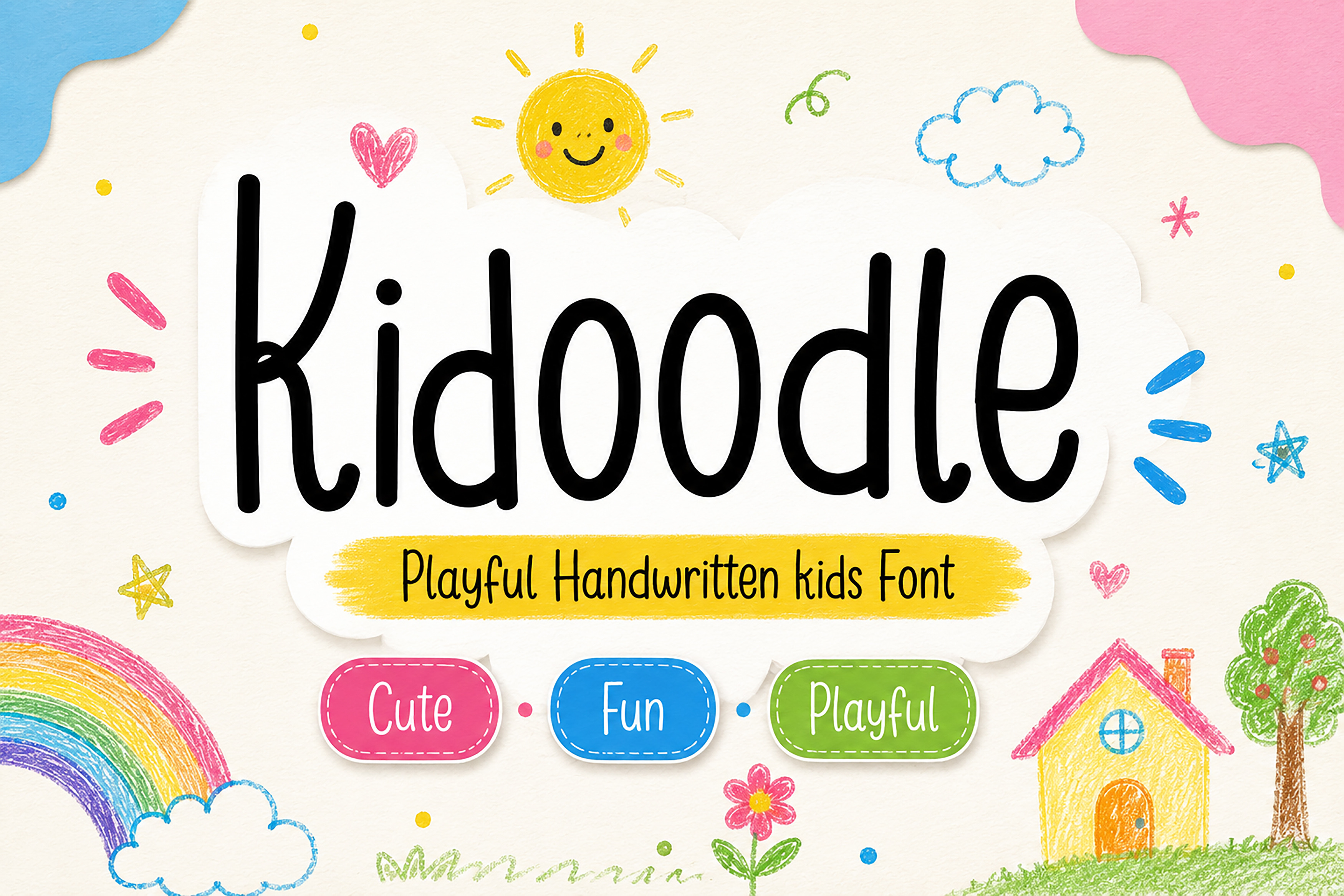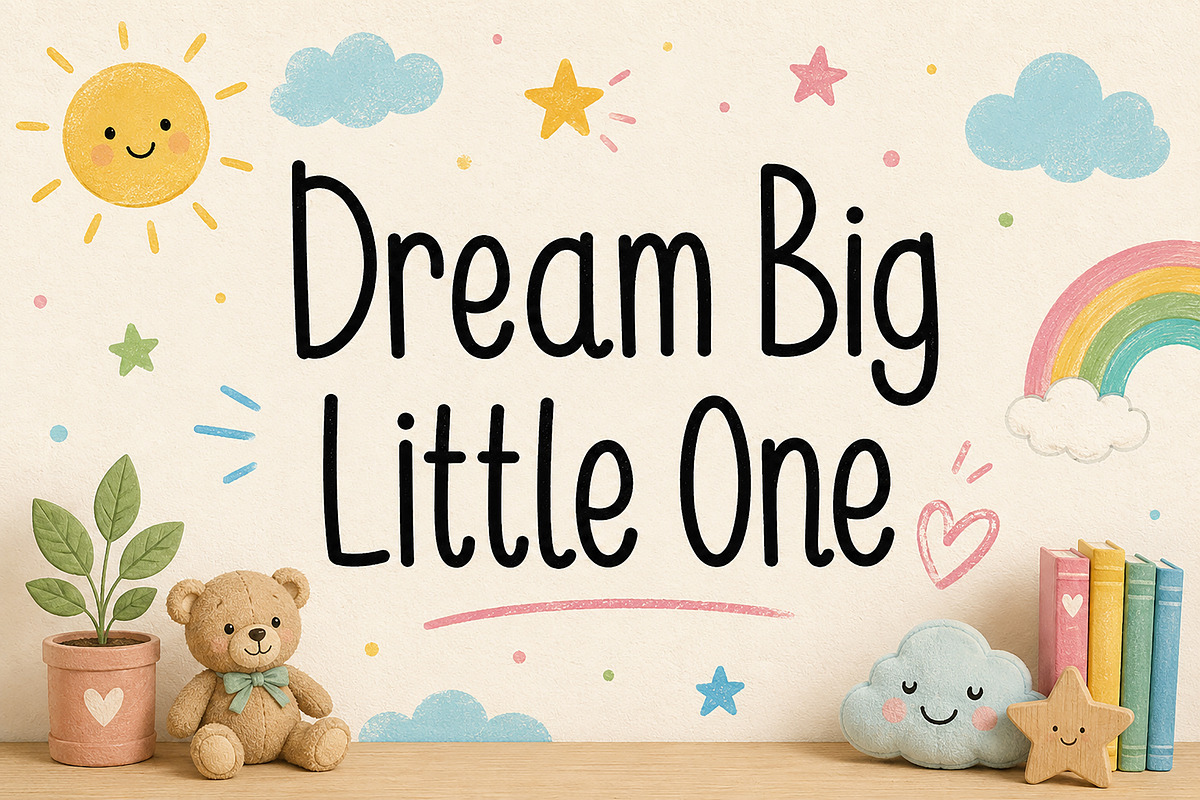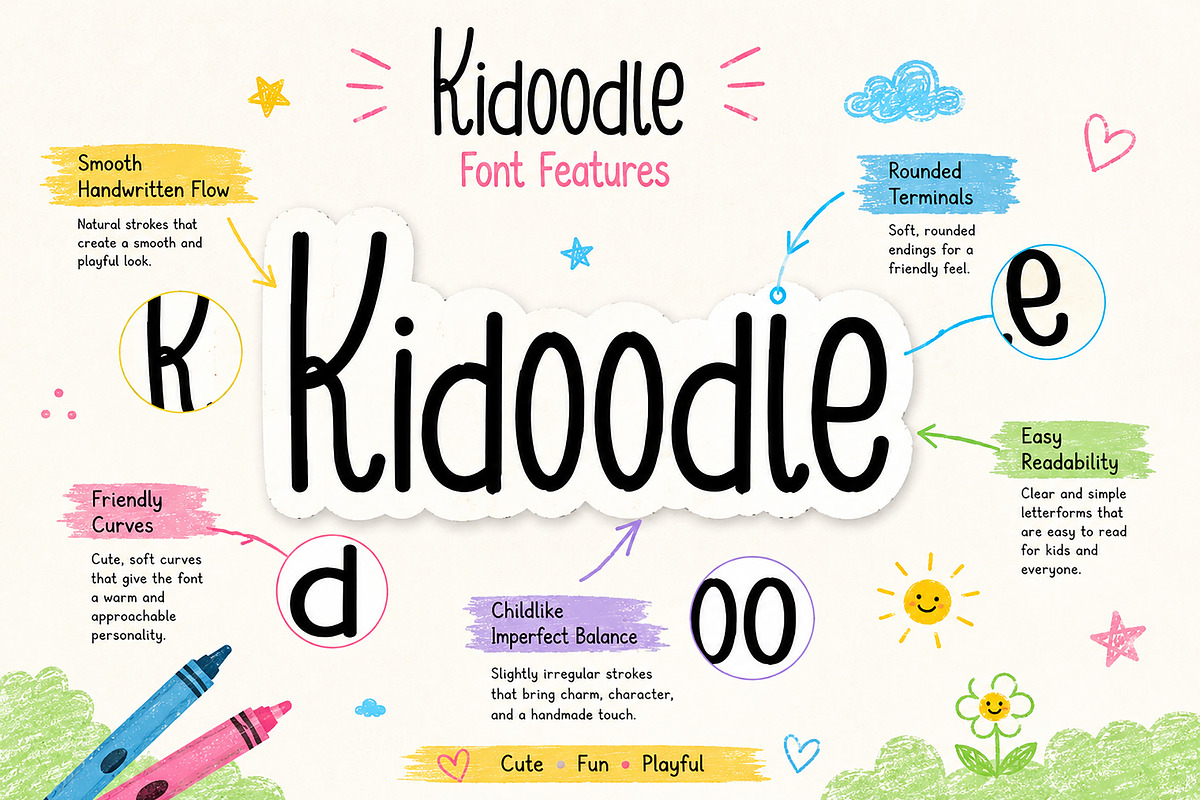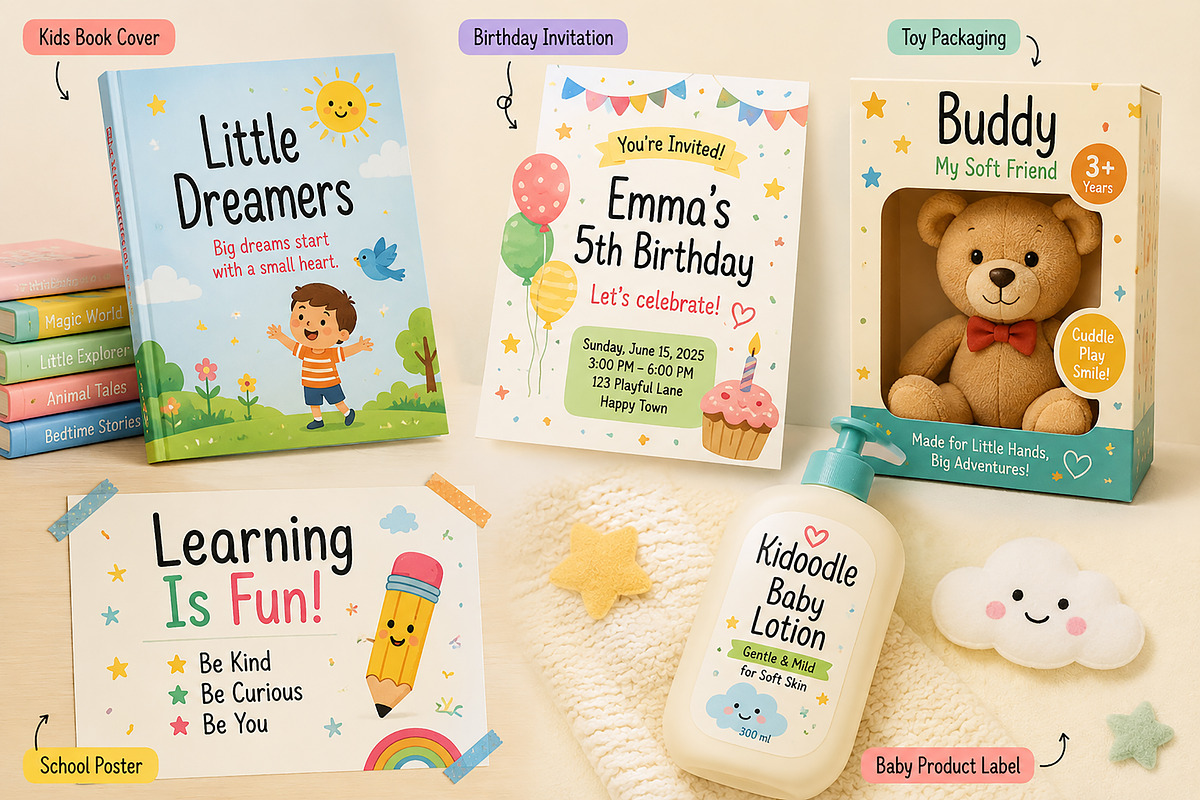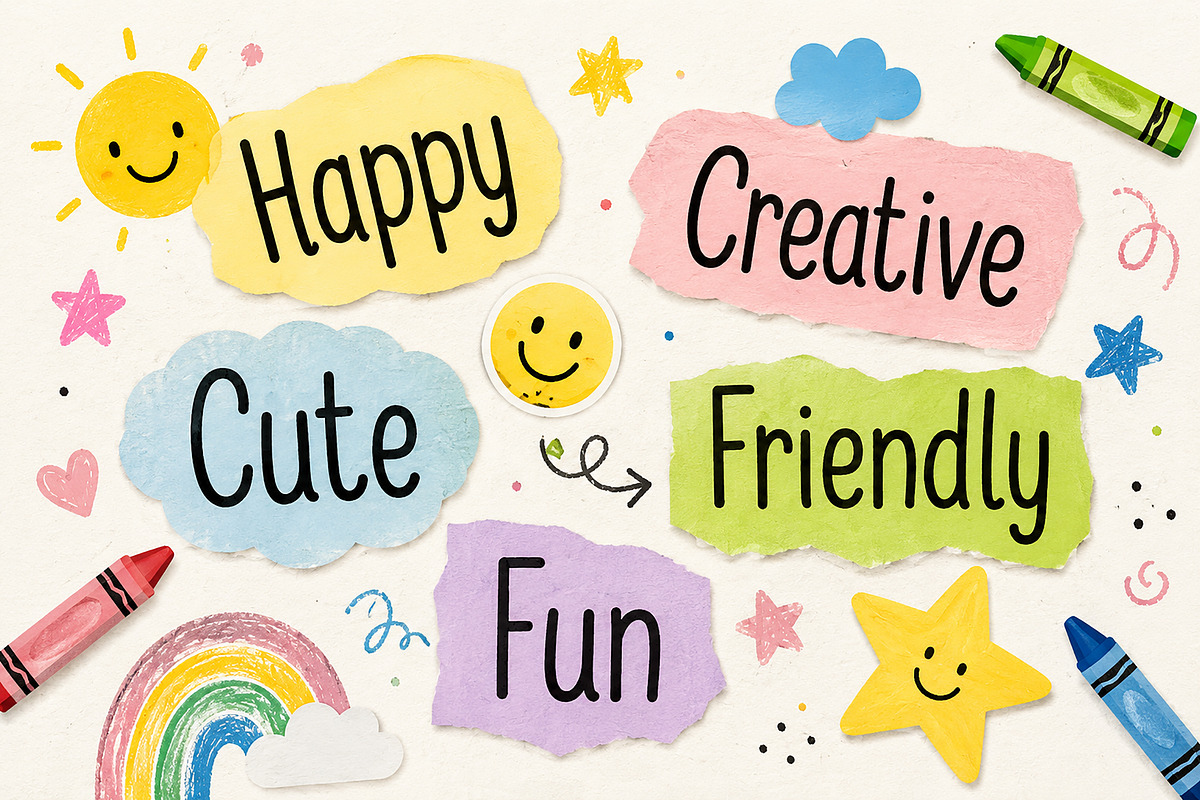
Kidoodle – Playful Handwritten Font
Kidoodle – Playful Handwritten Kids Font
Meet Kidoodle, a playful handwritten font full of charm, joy, and childlike creativity. Designed with smooth strokes, rounded edges, and a friendly imperfect balance, this font brings a warm and fun personality to any project.
Inspired by children’s doodles and handwritten notes, Kidoodle is perfect for creating cheerful designs that feel natural, cute, and full of life. Its clean readability and organic flow make it ideal for both print and digital use.
Whether you’re designing for kids, baby brands, or playful creative projects, Kidoodle adds a soft and happy touch that instantly stands out.
Kids Book Covers
Birthday Invitations
Baby Shower Designs
Toy Packaging
School Posters
Nursery Wall Art
Educational Materials
YouTube Kids Thumbnails
Children’s Branding
Stickers & Craft Projects
Smooth Handwritten Flow
Rounded Friendly Letterforms
Easy Readability
Kid-Friendly Style
Kidoodle is the perfect choice for designers looking for a cute, fun, and playful handwritten font.
Bring your ideas to life with Kidoodle!